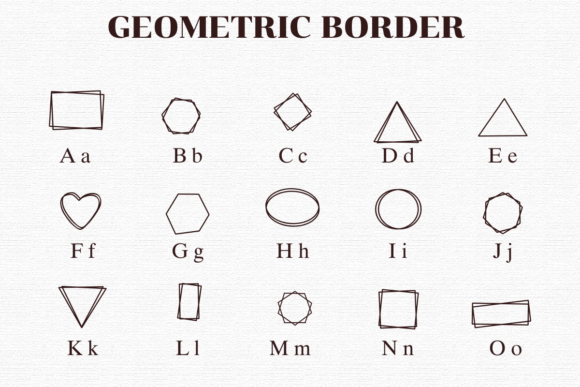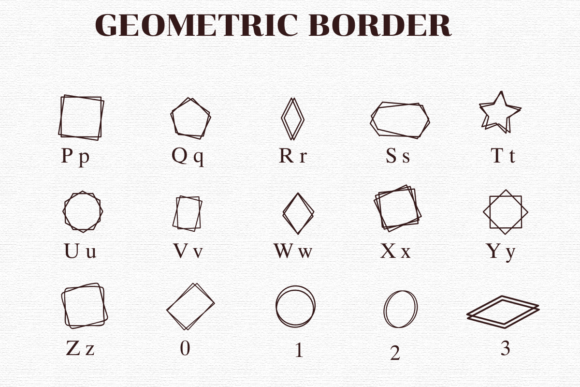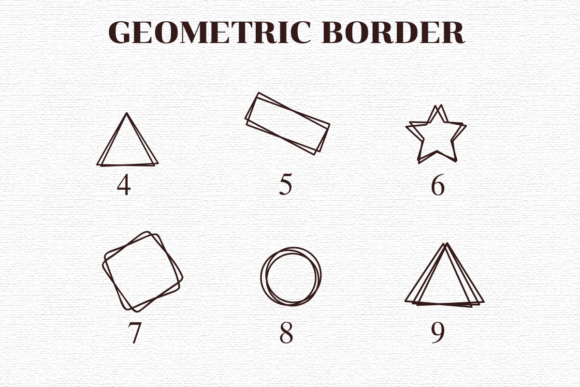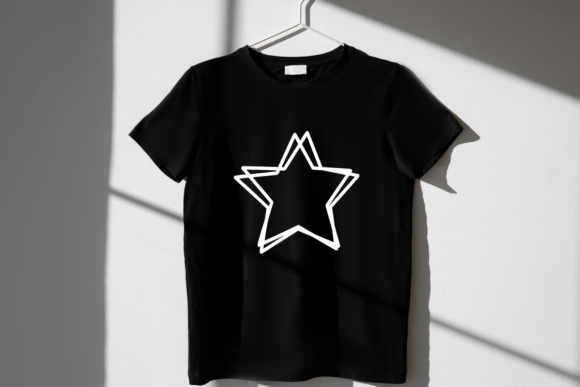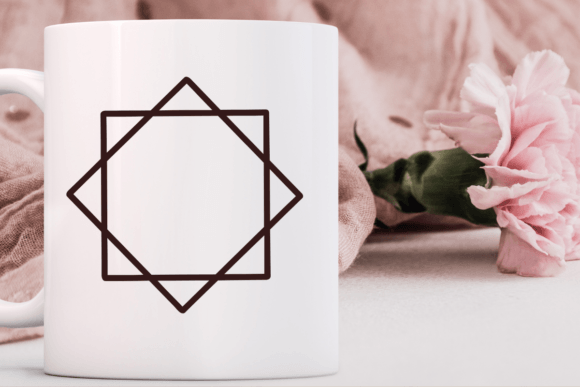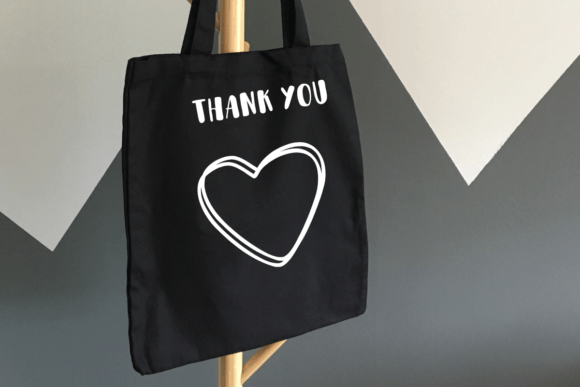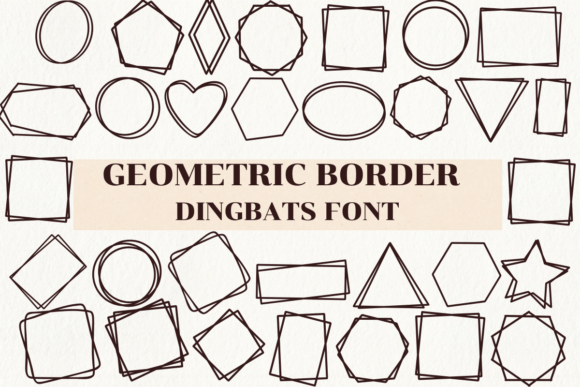
Elevate Your Designs with Geometric Border Font: A Comprehensive Guide
Are you looking for a unique and stylish way to add decorative touches to your projects? Look no further than the Geometric Border Font, a dingbat font featuring double geometric shapes that can help you create stunning borders and frames. In this article, we’ll dive into the world of Geometric Border Font, exploring its features, benefits, and uses, as well as provide tips and inspiration for designers and crafters.
What is Geometric Border Font?
Geometric Border Font is a specially designed dingbat font that showcases double geometric shapes, carefully crafted to create beautiful borders and frames. This font is perfect for designers, crafters, and anyone looking to add a touch of elegance and sophistication to their projects. The font features a range of shapes, including squares, circles, triangles, and more, all paired together to create a bold, symmetrical look.
Key Features of Geometric Border Font
• Double Geometric Shapes: The font features a variety of double geometric shapes, allowing you to create unique and stylish borders and frames.
• Simple, Clean Lines: The font’s simple, clean lines make it easy to use and versatile, perfect for a range of projects.
• Repeating Patterns: The font’s repeating patterns enable you to create seamless borders and frames, adding a professional touch to your designs.
• Variety of Shapes: With a range of shapes, including squares, circles, triangles, and more, you’ll have endless possibilities for creating unique borders and frames.
Benefits of Using Geometric Border Font
So, why choose Geometric Border Font for your projects? Here are just a few benefits:
• Easy to Use: The font is incredibly easy to use, even for those with limited design experience.
• Customizable: With a range of shapes and patterns, you can customize your borders and frames to fit your project’s unique needs.
• Time-Saving: The font’s repeating patterns and simple lines save you time and effort, allowing you to focus on other aspects of your project.
• Professional Results: The font’s bold, symmetrical look and clean lines ensure professional-looking results, every time.
Uses for Geometric Border Font
Geometric Border Font is perfect for a range of projects, including:
• Graphic Design: Use the font to create stunning borders and frames for brochures, flyers, posters, and more.
• Crafting: Add a touch of elegance to your scrapbooking, card making, and other paper crafting projects.
• Digital Design: Use the font to create beautiful borders and frames for social media graphics, blog posts, and website designs.
Here are a few tips and inspiration ideas to get you started with Geometric Border Font:
• Experiment with Different Shapes: Don’t be afraid to try out different shapes and patterns to find the perfect combination for your project.
• Mix and Match: Combine Geometric Border Font with other fonts and design elements to create a unique look.
• Use as a Background Element: Use the font as a background element to add texture and interest to your design.
Geometric Border Font is a versatile and stylish dingbat font that’s perfect for designers, crafters, and anyone looking to add a touch of elegance to their projects. With its double geometric shapes, simple clean lines, and repeating patterns, this font is sure to elevate your designs and save you time and effort. Whether you’re working on a graphic design project, crafting, or digital design, Geometric Border Font is a must-have tool in your design arsenal.